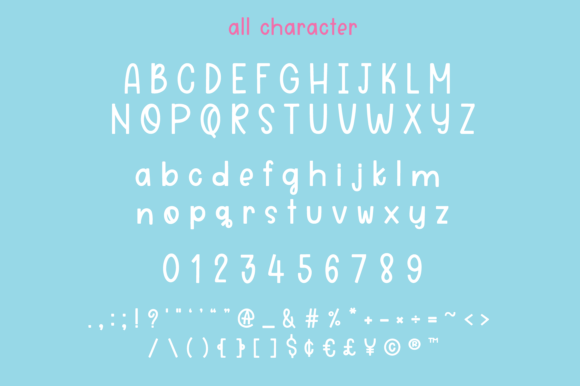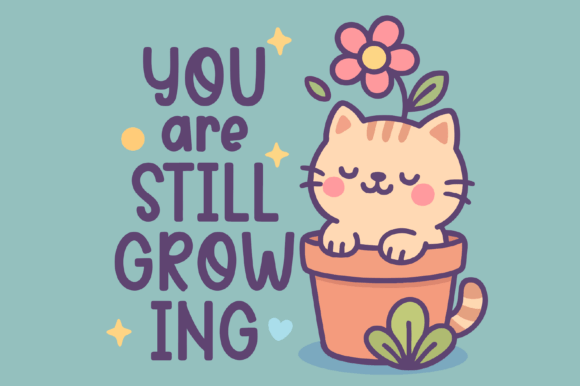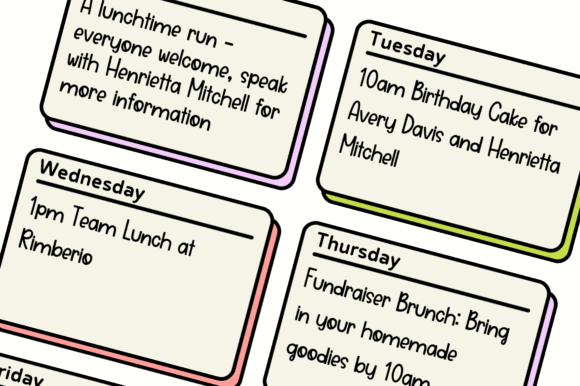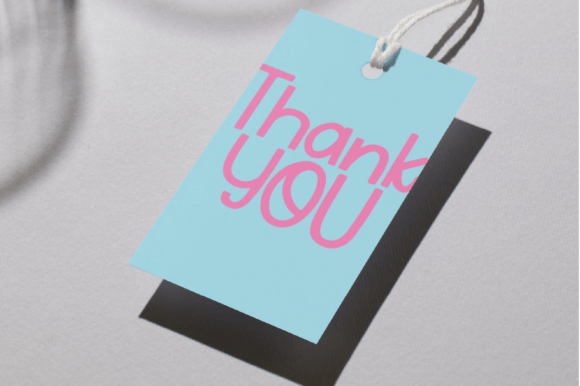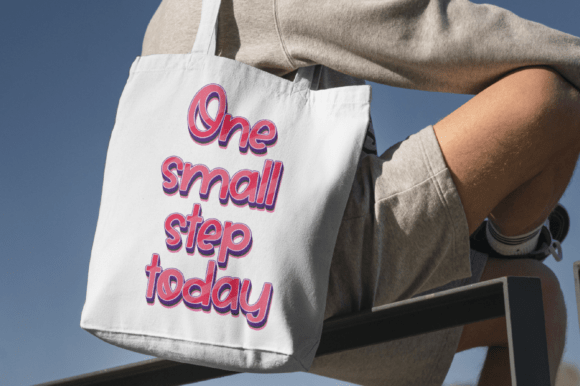
Cotton Dreams Font: The Ultimate Choice for Whimsical Creations
Are you a designer or crafter looking for a font that can add a touch of magic to your creations? Look no further than Cotton Dreams, an enchantingly gentle handwritten font with a hint of whimsy. This beautiful font is perfect for kids-themed creations, serene baby shower invites, adorable merchandise, darling stickers, and more.
The Charm of Cotton Dreams
Cotton Dreams is a unique font that boasts tender curves and a pastel-like appeal. Its soft and delicate appearance makes it an ideal match for designs that require a touch of warmth and fantasy. Whether you’re creating nursery art and decor, designing enchanting logos and packaging, or crafting captivating birthday invites, Cotton Dreams is the perfect choice.
Ideal Uses for Cotton Dreams
Cotton Dreams is a versatile font that can be used in a variety of creative projects. Here are some ideal uses for this beautiful font:
- Nursery Art and Decor: Add a touch of sweetness to nursery art and decor with Cotton Dreams. Create adorable wall art, mobiles, and other decorative items that will delight little ones.
- Enchanting Logos and Packaging: Use Cotton Dreams to design enchanting logos and packaging for your brand. This font is perfect for businesses that cater to parents, children, or anyone who loves whimsical designs.
- Cricut/Silhouette Crafts: Cotton Dreams is a great font for crafters who use Cricut or Silhouette machines. Create custom vinyl signs, iron-on designs, and other crafts that will add a personal touch to your projects.
- Captivating Birthday Invites: Create captivating birthday invites with Cotton Dreams. This font is perfect for kids’ birthday parties, baby showers, and other celebrations.
- Social Media Content: Use Cotton Dreams to create engaging social media content that will delight your followers. Create adorable graphics, quotes, and other visual content that will make your brand stand out.
- Baby-Oriented Items: Cotton Dreams is a great font for designing baby-oriented items such as baby blankets, onesies, and nursery decor.
Why Choose Cotton Dreams?
So, why choose Cotton Dreams over other fonts? Here are a few reasons:
- Unique and Whimsical: Cotton Dreams is a unique and whimsical font that will add a touch of magic to your creations.
- Versatile: This font is versatile and can be used in a variety of creative projects.
- Easy to Read: Cotton Dreams is easy to read, making it perfect for designs that require a clear and legible font.
- Scalable: This font is scalable, making it perfect for designs that require a large or small font size.
Tips for Using Cotton Dreams
Here are a few tips for using Cotton Dreams:
- Pair with Other Fonts: Pair Cotton Dreams with other fonts to create a unique and visually appealing design.
- Use Pastel Colors: Use pastel colors to complement the soft and delicate appearance of Cotton Dreams.
- Experiment with Sizes: Experiment with different font sizes to create visual interest and hierarchy in your design.
Cotton Dreams is a beautiful and versatile font that is perfect for designers and crafters who want to add a touch of magic to their creations. With its tender curves and pastel-like appeal, this font is ideal for kids-themed creations, serene baby shower invites, adorable merchandise, and more. Whether you’re creating nursery art and decor, designing enchanting logos and packaging, or crafting captivating birthday invites, Cotton Dreams is the perfect choice. So, why wait? Enrich your next creative venture with the soft magic of Cotton Dreams!